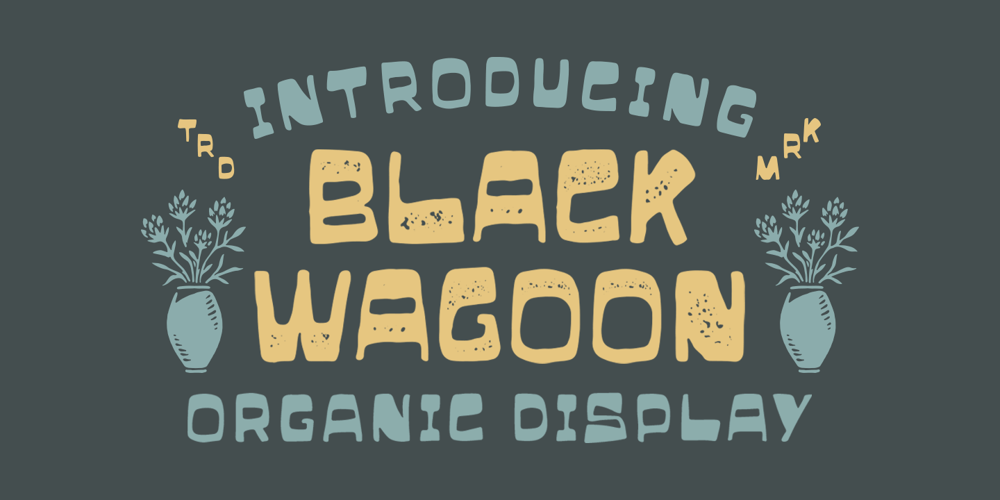
Black Wagoon Font Family was designed by Hendry Juanda and published by Letterhend. Black Wagoon contains 2 styles and family package options. Black Wagoon is organic display font with unique and fun looks. This font is also suitable to be applied especially in logo, and the other various formal forms such as invitations, labels, logos, magazines, books, greeting / wedding cards, packaging, fashion, make up, stationery, novels, labels or any type of advertising purpose.Features : regular and stamped version numbers and punctuation multilingual & ligatures PUA encoded We highly recommend using a program that supports OpenType features and Glyphs panels like many of Adobe apps and Corel Draw, so you can see and access all Glyph variations.